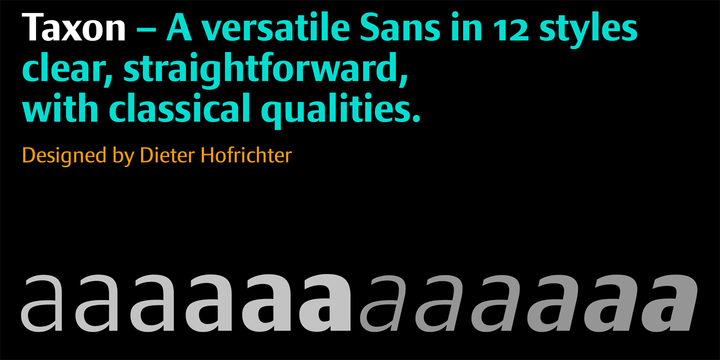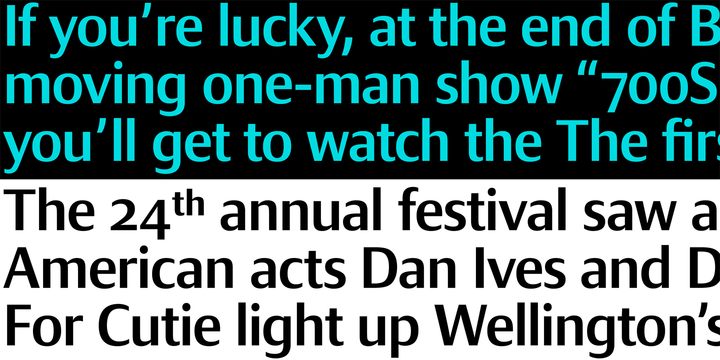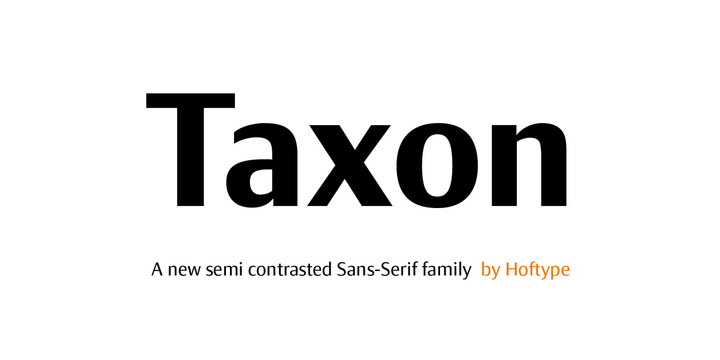
Taxon
Taxon Font Family
Taxon is a straightlined Sans with a clean, fresh and unsentimental look. Related to classical faces like Optima and Imago, it appears more contemporary and merges the austere linearity of the Grotesk with the elegance of the Antiqua.